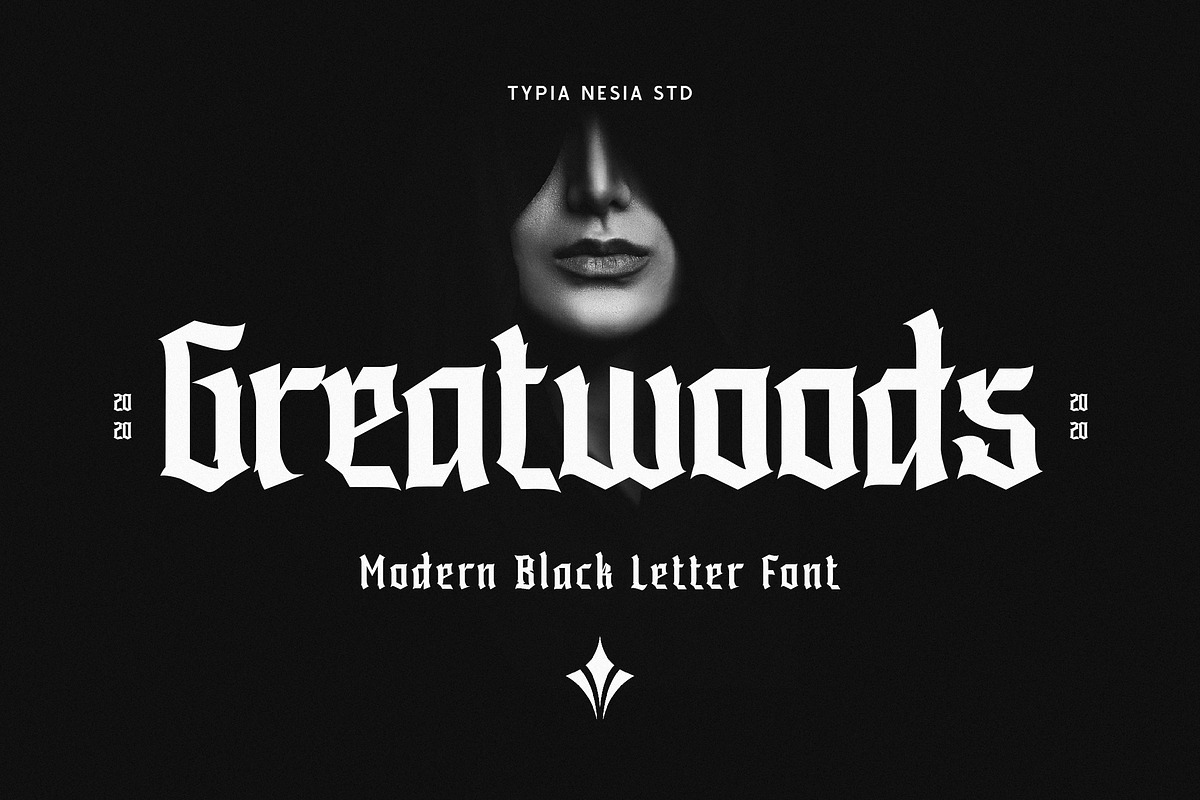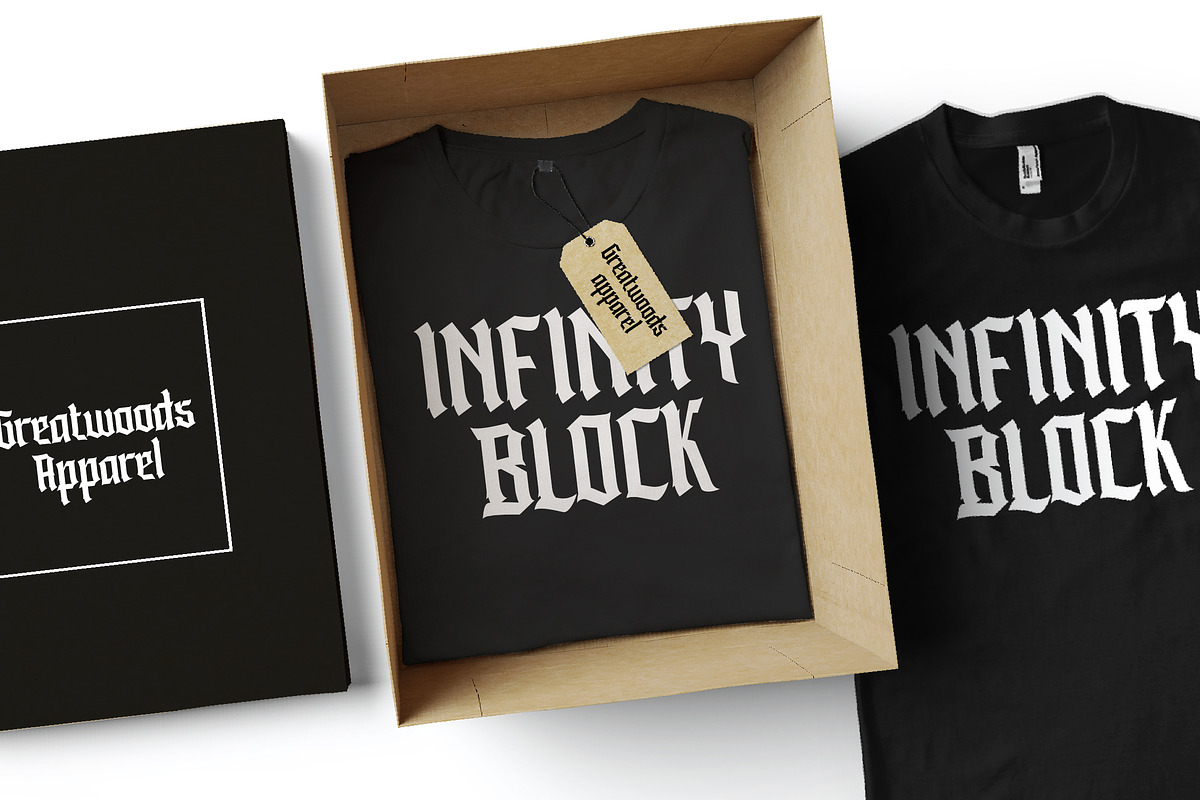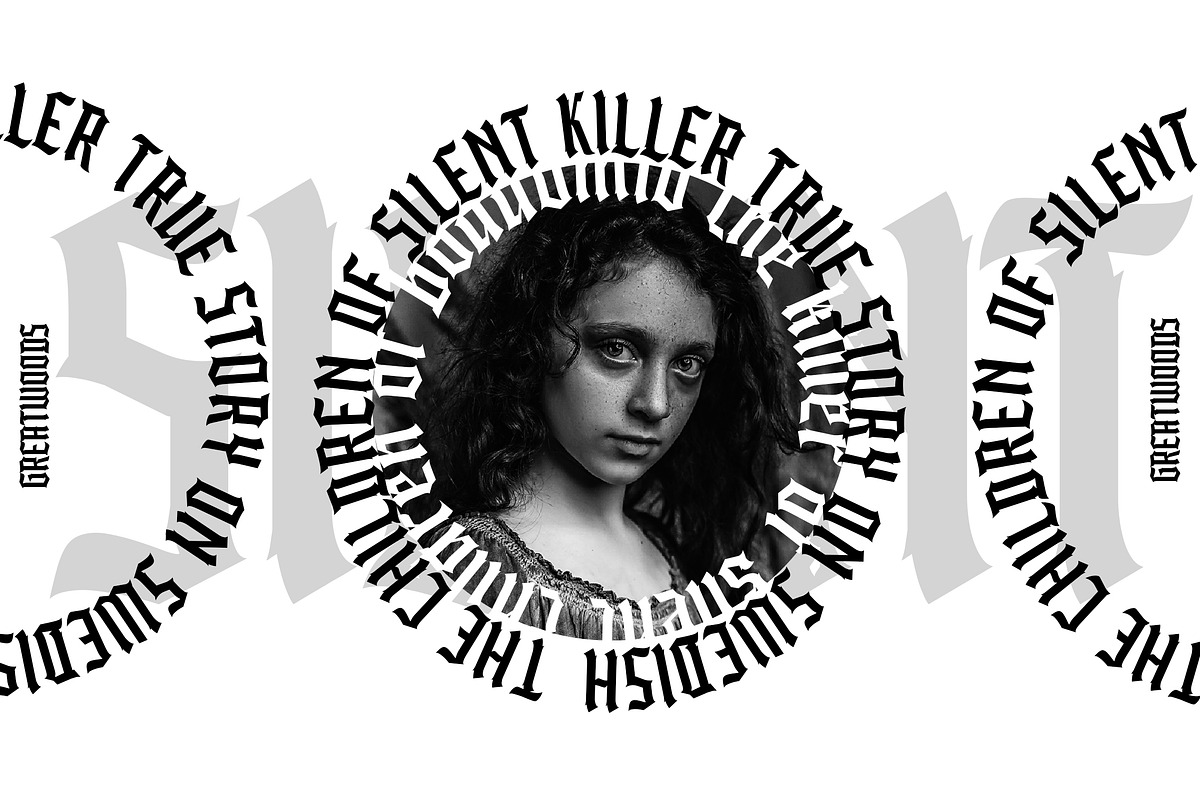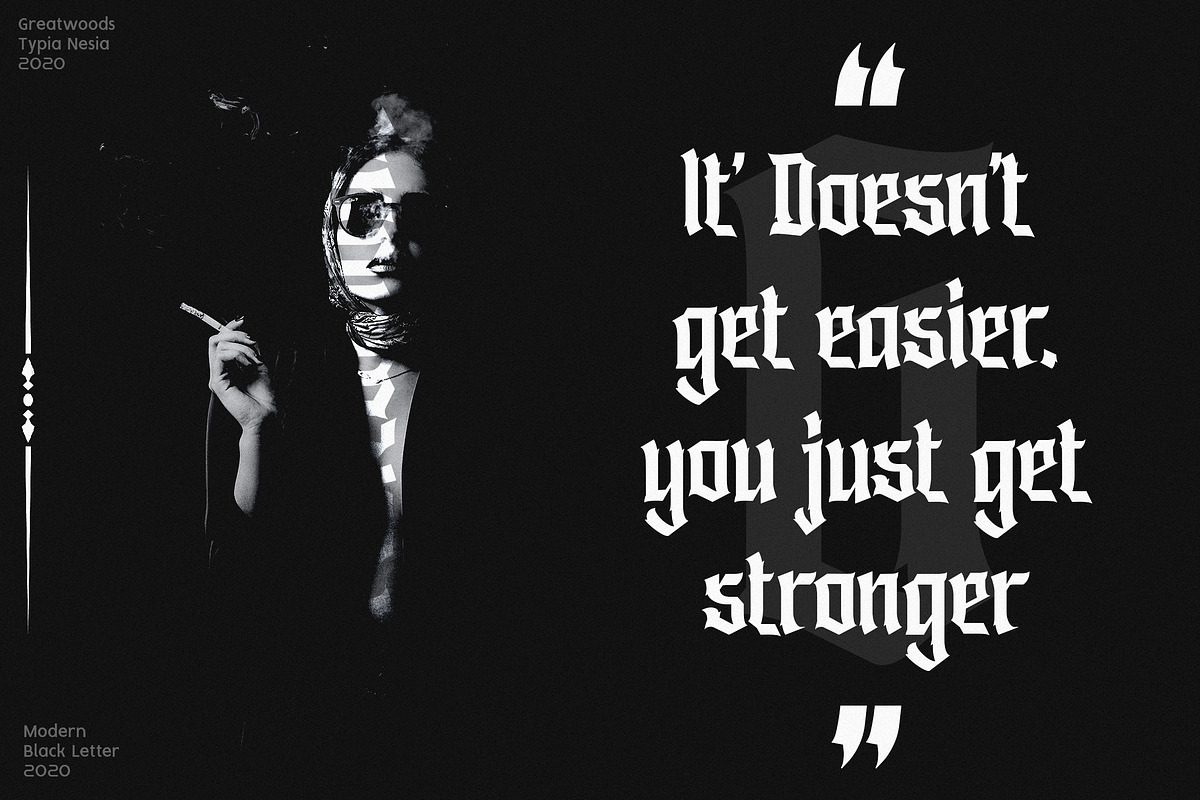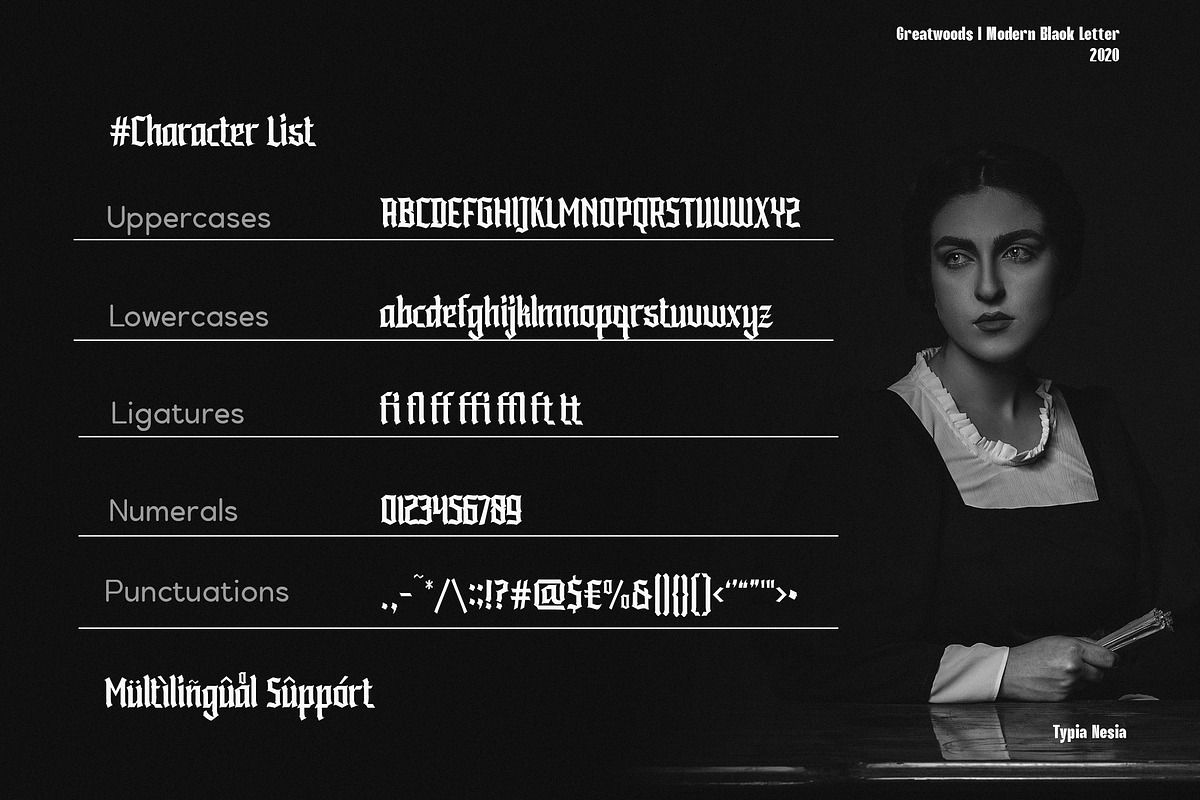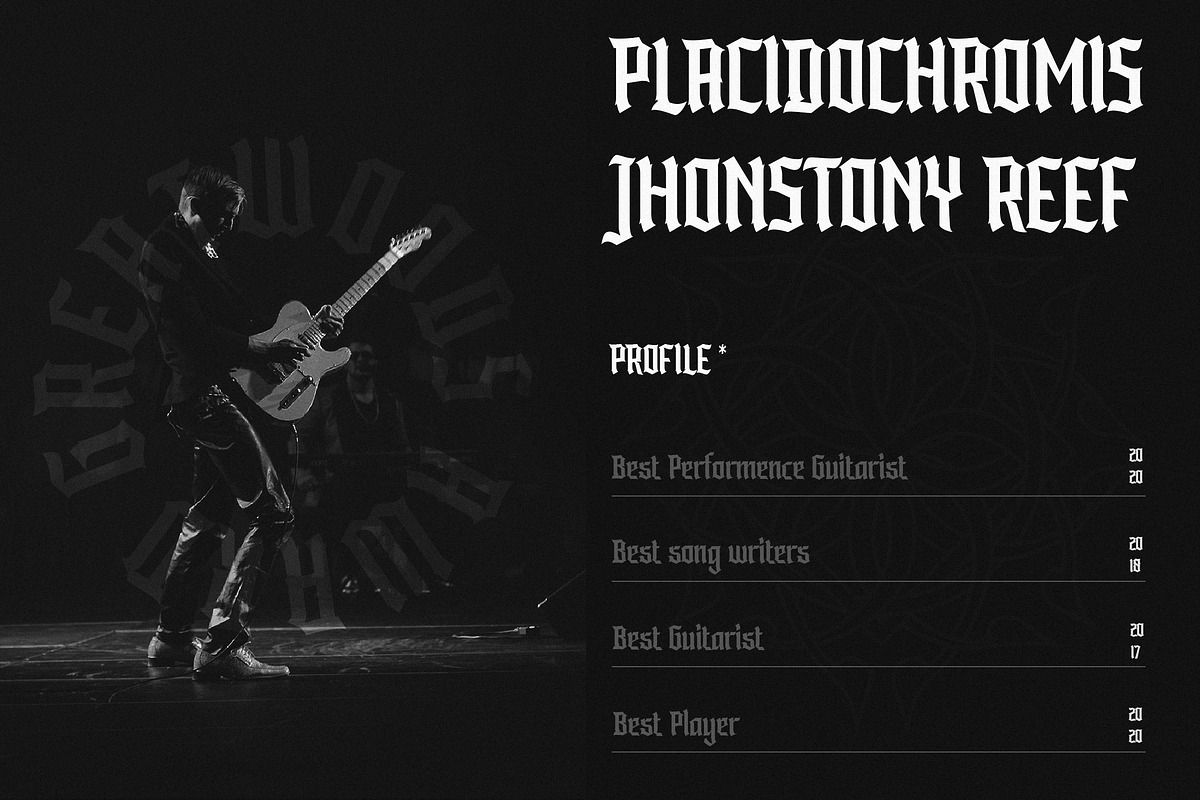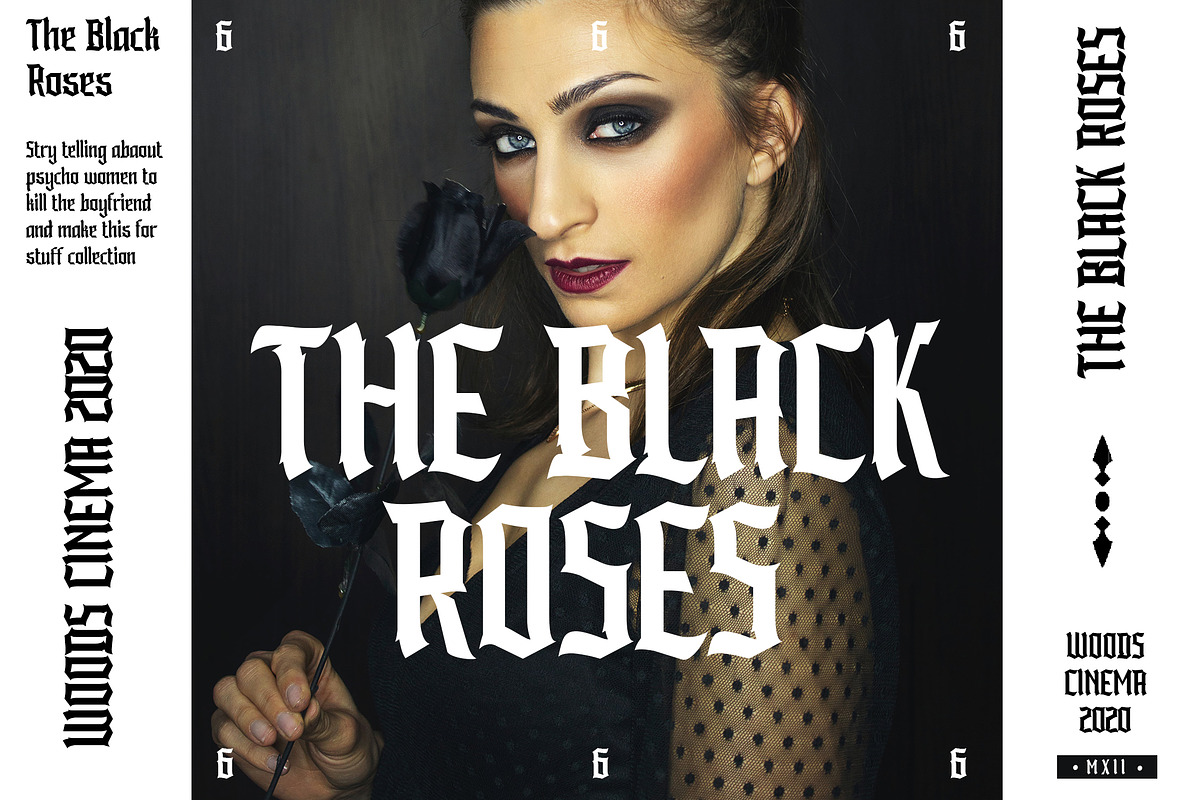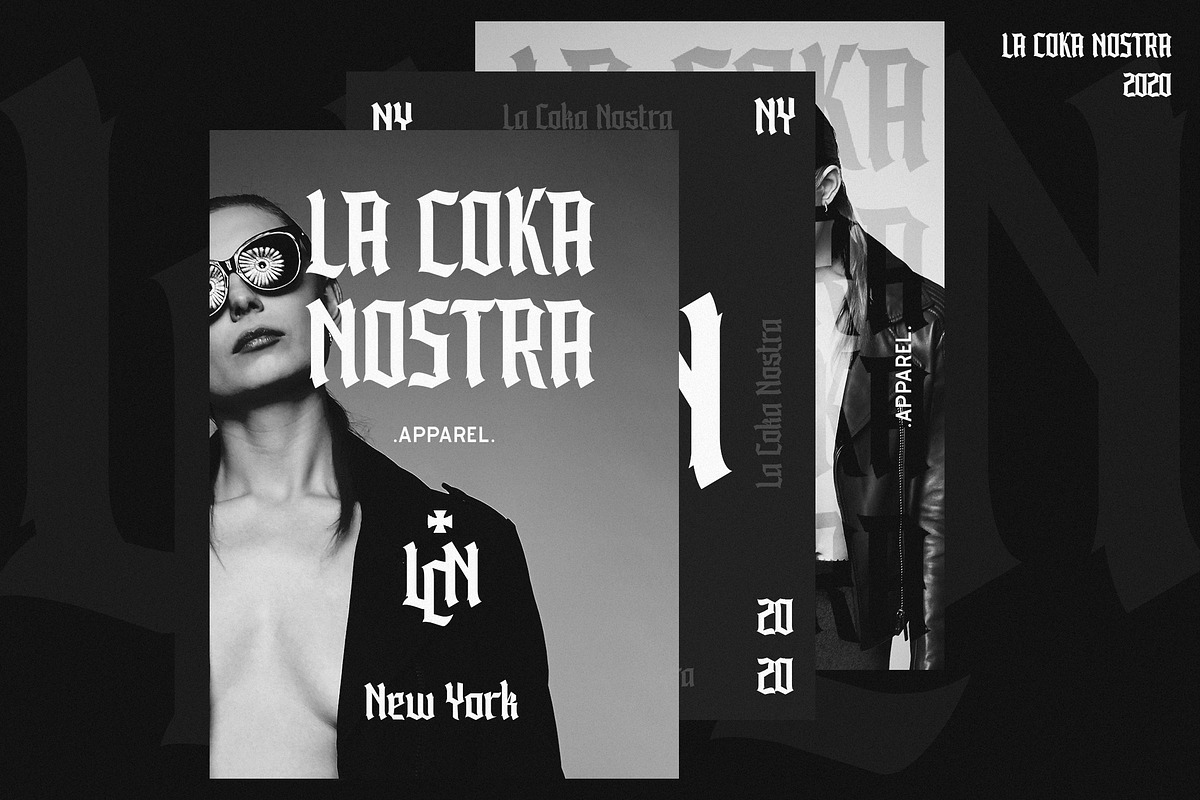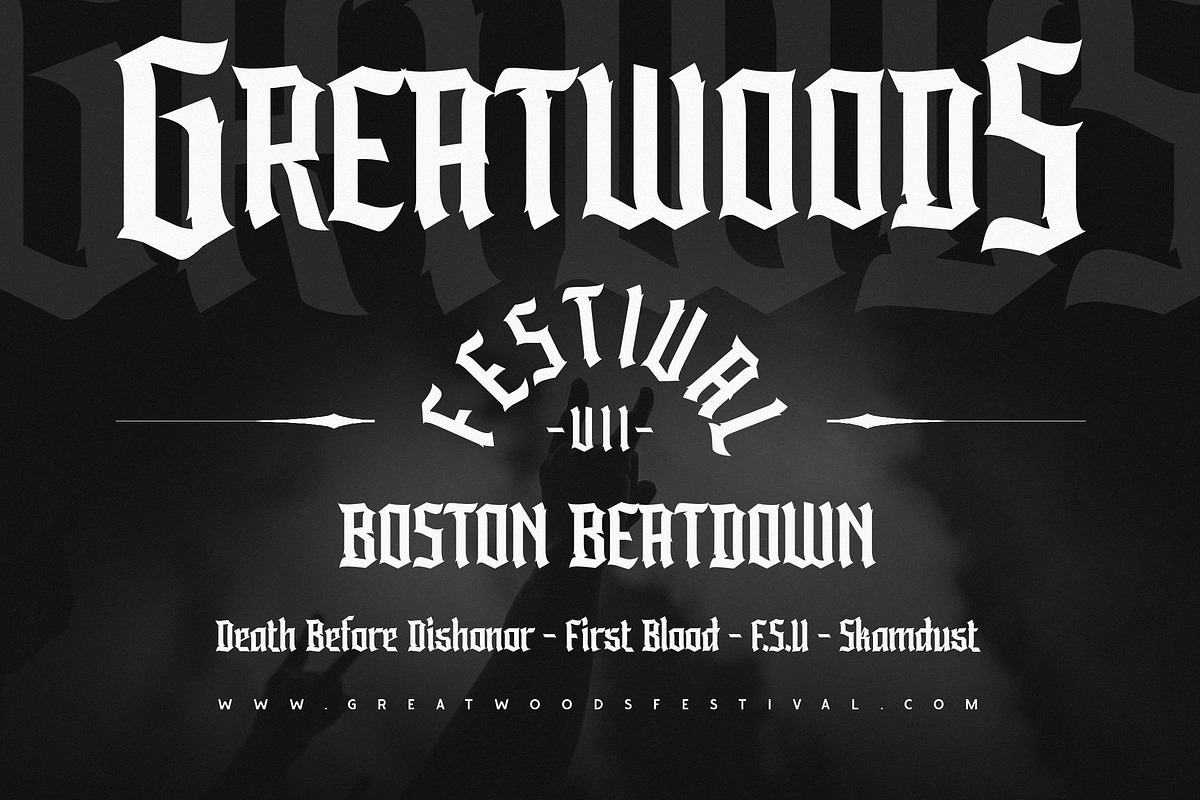
Greatwoods
Greatwoods Modern Blackletter - Decorative Display Font
Suitable for any design needs : logo, branding, modern advertising design, halloween, gothic design, apparel, hardcore music, animation or movie, logos, poster quote, book / cover Title, editorial design, website / blog, card, custom mug, pillow, t-shirts, and any gothic hand-lettered needs.
Typia Nesia Std